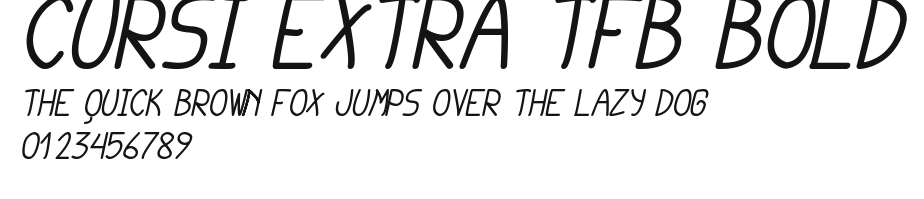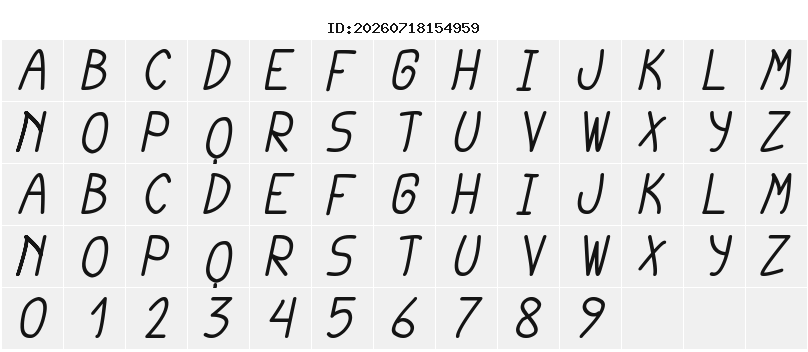
cursi extra tfb bold Preview
• Font Name: cursi extra tfb bold
• Font Style: Italique
• Full Font Name: cursi extra tfb bold Italic
• Version: Version 1.00 February 11, 2013, initial release
About cursi extra tfb bold.ttf
cursi extra tfb bold.ttf is a modern, elegant sans-serif font designed for ultimate readability and visual harmony. Perfect for branding, headlines, web design, and print materials.